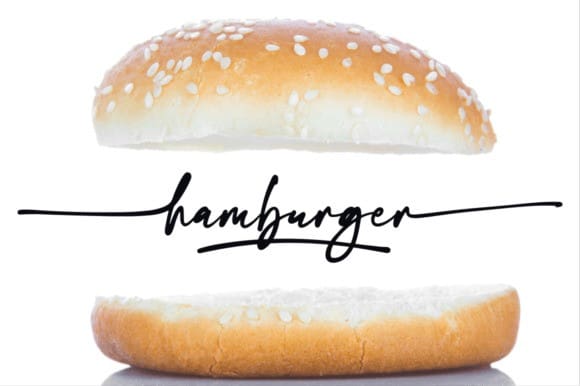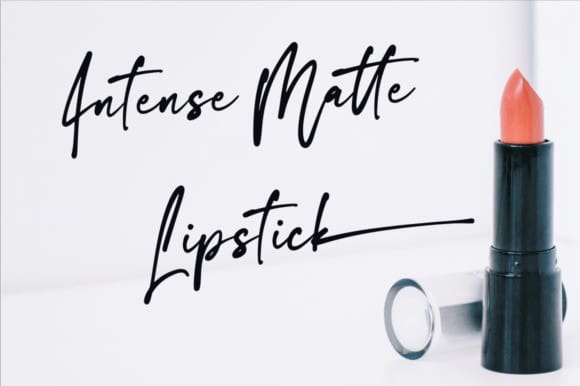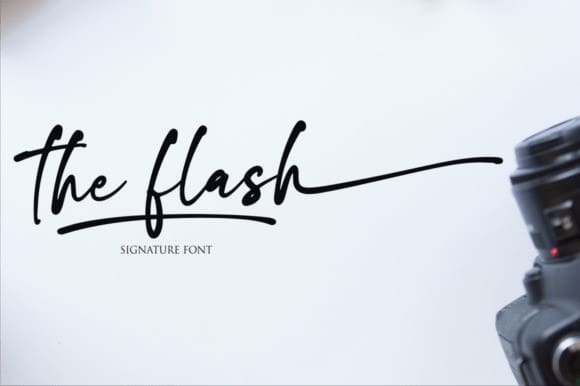
The Flash Font
The Flash Font is a flowing handwritten font, described by an elegant touch, perfect for your favorite projects. Fall in love with its incredibly distinct and timeless style and use it to create spectacular designs!